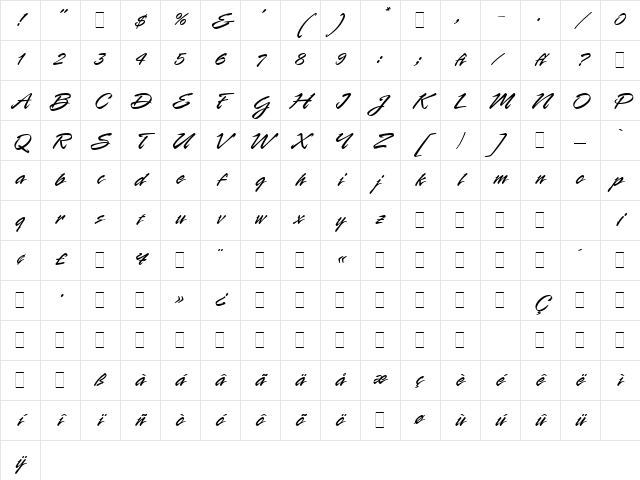
Rapier LET Let Plain
Style: Let Plain
Design Context for Rapier LET
Rapier LET is a composed and adaptable typeface that performs quietly and consistently across a wide range of design contexts.